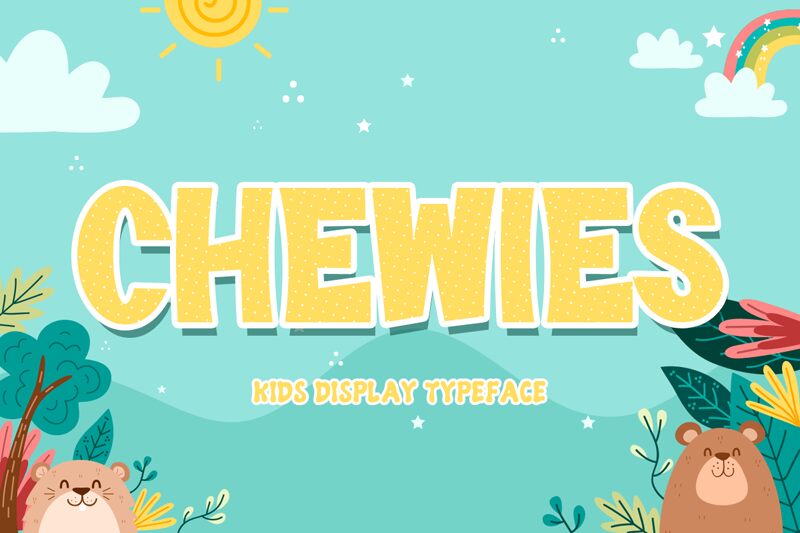
Chewies
Chewies, a playful masterpiece from Kong Font, brings the whimsy of cartoons directly into the realm of typography. As a display font with an extra-bold weight, Chewies boasts chunky letters that are perfect for commanding attention and adding a touch of fun to any design. Its cartoon style is not just about aesthetic appeal; it's about invoking nostalgia and capturing the imagination.
Crafted with an eye for versatility, Chewies shines in a vast array of creative projects. Whether it’s for animated movie titles, children's book covers, playful branding, or eye-catching posters, this font’s boldness and character ensure that your message stands out with cheerfulness and vibrancy.
The robust lines and friendly curves make Chewies approachable yet impactful—an ideal choice for designers looking to inject personality into their work. With its delightful presence, Chewies promises to be an indispensable asset in creating designs that are both lively and memorable.